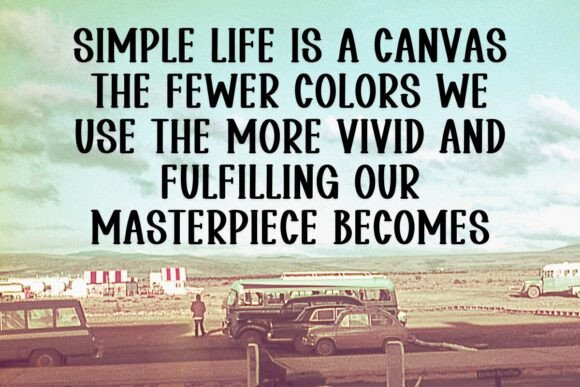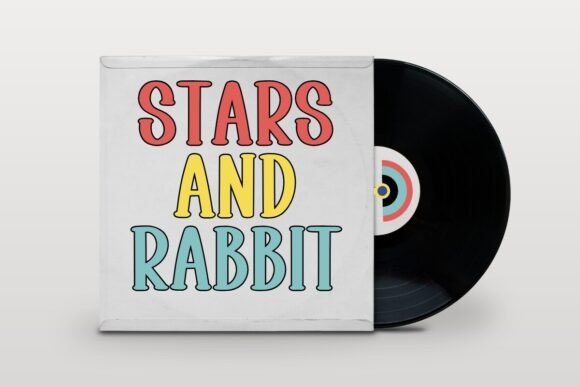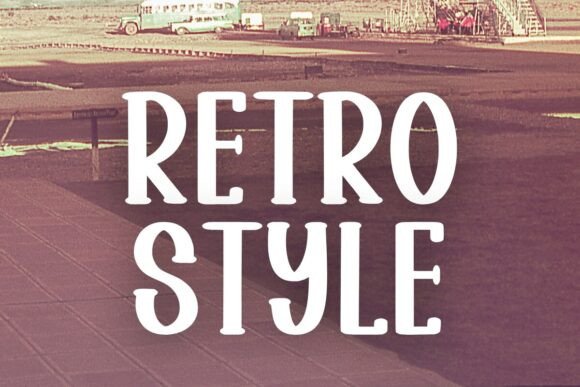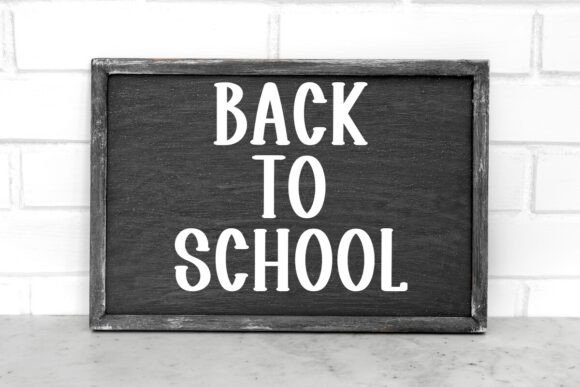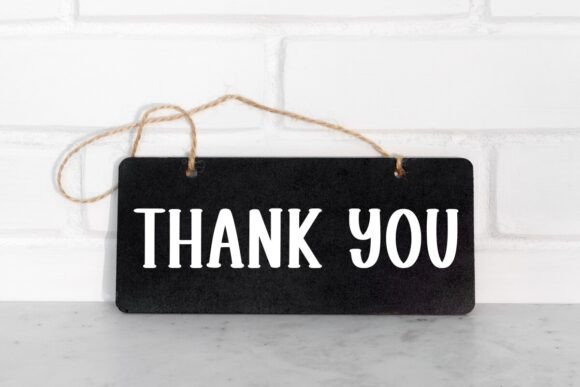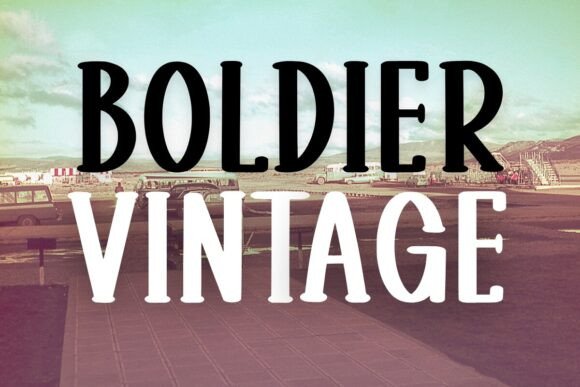
Introducing Boldier Vintage: The Modern Slab Serif Font with a Touch of Whimsy
In the world of typography, fonts play a crucial role in conveying the tone and personality of a design. For designers and crafters looking for a font that combines modernity with a touch of nostalgia, Boldier Vintage is an excellent choice. This delightful slab serif font is a perfect blend of whimsy and clarity, making it ideal for a variety of design projects.
The Unique Characteristics of Boldier Vintage
Boldier Vintage stands out with its playful curves and rounded edges, which bring a sense of warmth and friendliness to any design. The font’s modern and sleek design makes it perfect for projects that require a contemporary look, while its vintage undertones add a touch of nostalgia and charm. The slab serif design provides a sturdy and dependable feel, making it suitable for a wide range of applications.
Perfect for Children’s Books and Invitations
Boldier Vintage is particularly well-suited for children’s books, invitations, and branding projects. The font’s playful and inviting personality makes it perfect for designs aimed at a younger audience or for creating materials that require a friendly and approachable tone. The font’s clarity and legibility ensure that the text is easy to read, making it an excellent choice for books, educational materials, and other written content.
Radiating Sweet Charm and Capturing Attention
One of the key benefits of Boldier Vintage is its ability to capture attention with its sweet charm and inviting personality. The font’s unique blend of modernity and vintage flair makes it stand out from more traditional fonts, adding a touch of personality to any design. Whether you’re creating a brand identity, designing an invitation, or crafting a children’s book, Boldier Vintage is sure to leave a lasting impression.
Design and Crafting Applications
Boldier Vintage is a versatile font that can be used in a variety of design and crafting applications. Some potential uses for the font include:
- Children’s books and educational materials
- Invitations and party decorations
- Branding and logo design
- Stationery and greeting cards
Why Choose Boldier Vintage?
There are many reasons why designers and crafters might choose Boldier Vintage for their projects. Some of the key benefits of the font include:
- Unique blend of modernity and vintage flair
- Playful curves and rounded edges for a friendly feel
- Excellent legibility and clarity
- Versatile and adaptable design
- Perfect for designs that require a touch of whimsy and charm
In conclusion, Boldier Vintage is a delightful slab serif font that offers a unique blend of modernity and vintage charm. With its playful curves, rounded edges, and sweet charm, it’s the perfect choice for designers and crafters looking to add a touch of personality to their projects. Whether you’re creating a children’s book, designing an invitation, or crafting a brand identity, Boldier Vintage is sure to capture attention and leave a lasting impression.